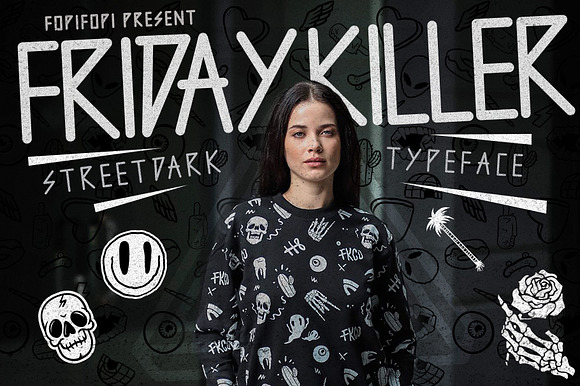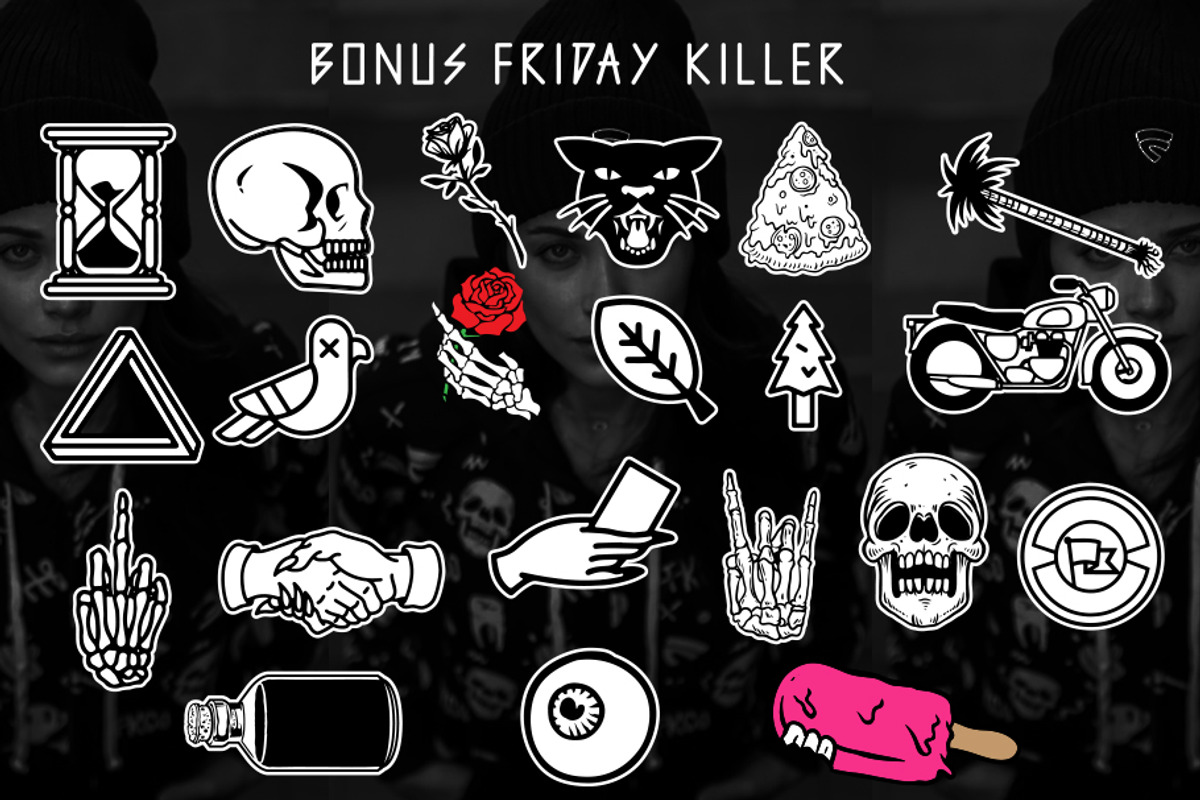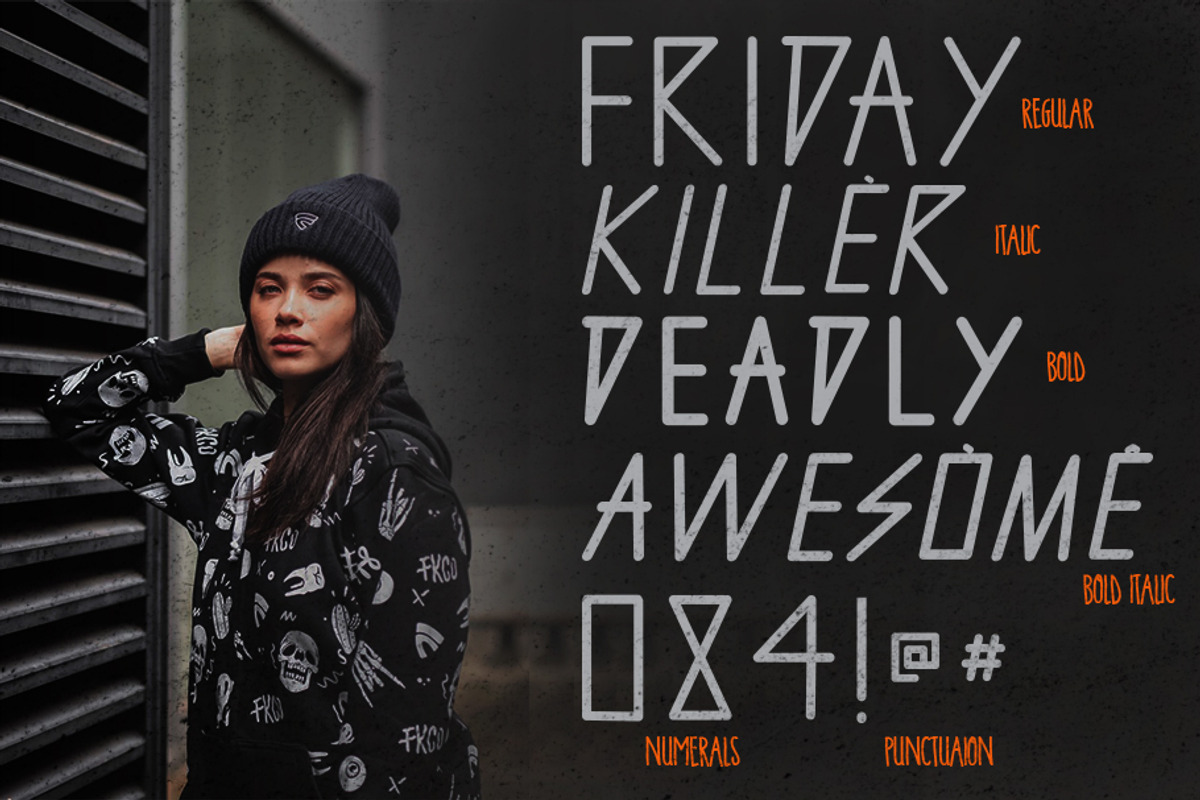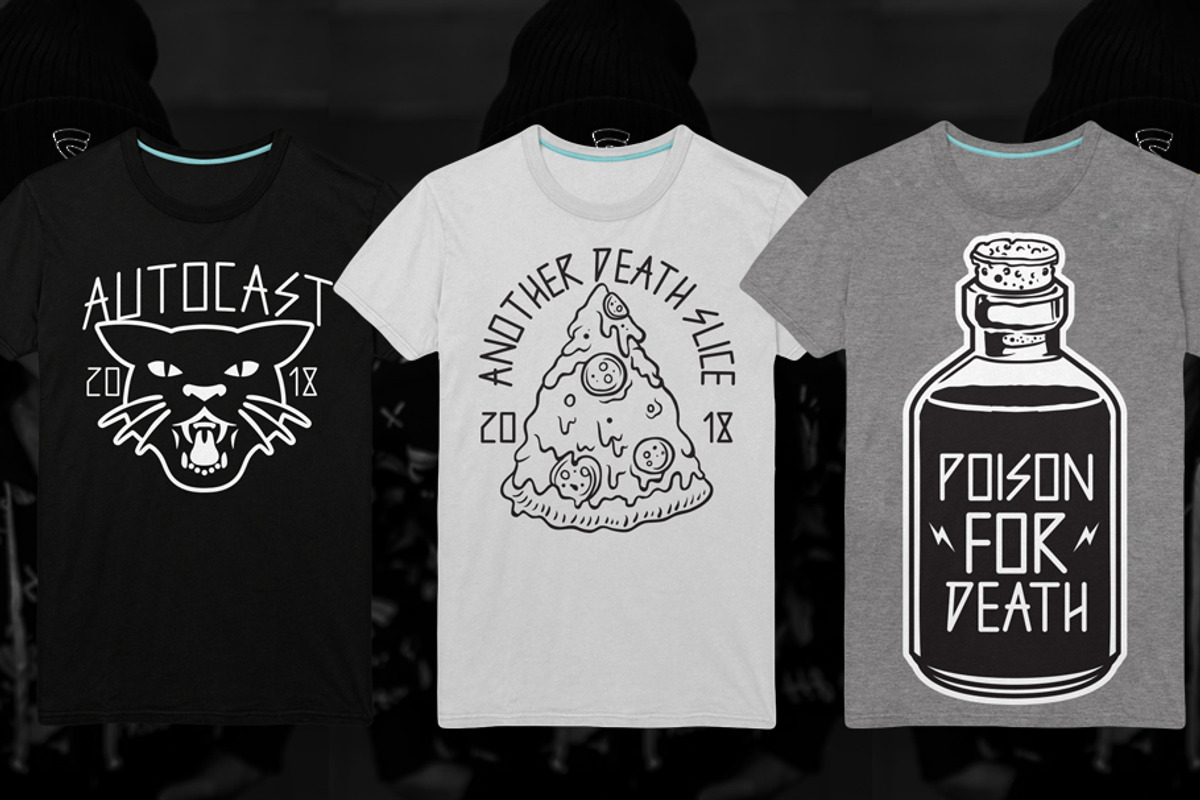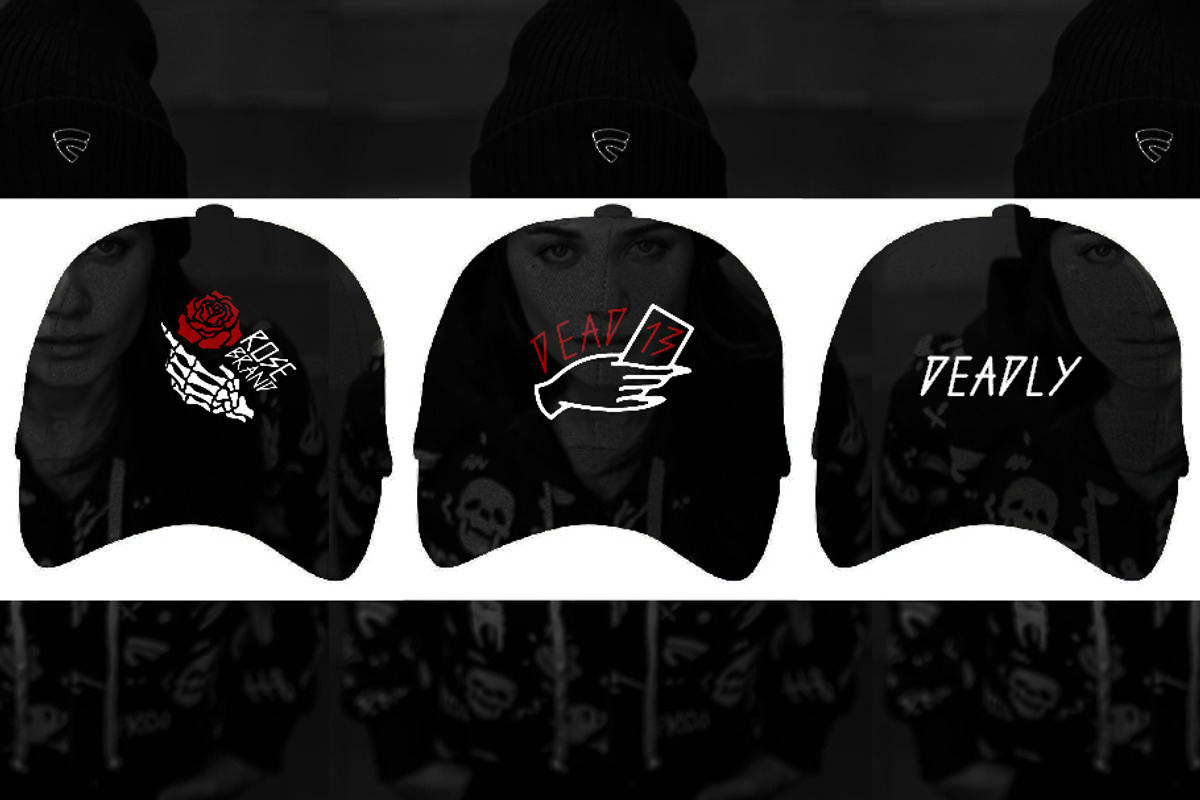
Friday Killer Font + Bonus
Looking up for some testosterone booster in your work? Then you gotta have these baddest boy inspired by dark metal and streetwear on your pocket. So basically, this font will allow you to explore, discover new things, GO ON ADVENTURES! And you’re gonna be able to create even more with the bonus, just build, dig, splash all you want. Keep in mind, there’s no limit on the road.